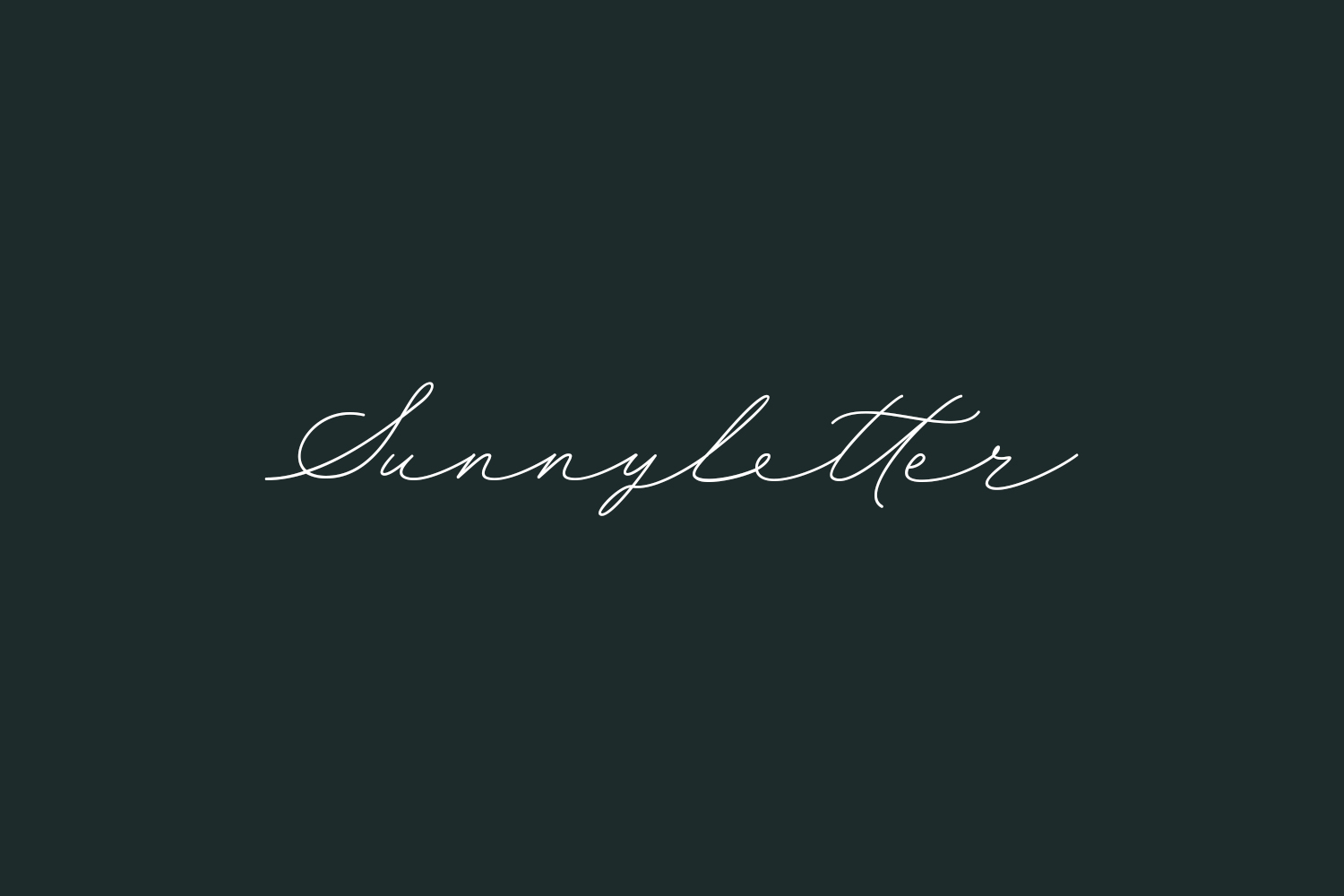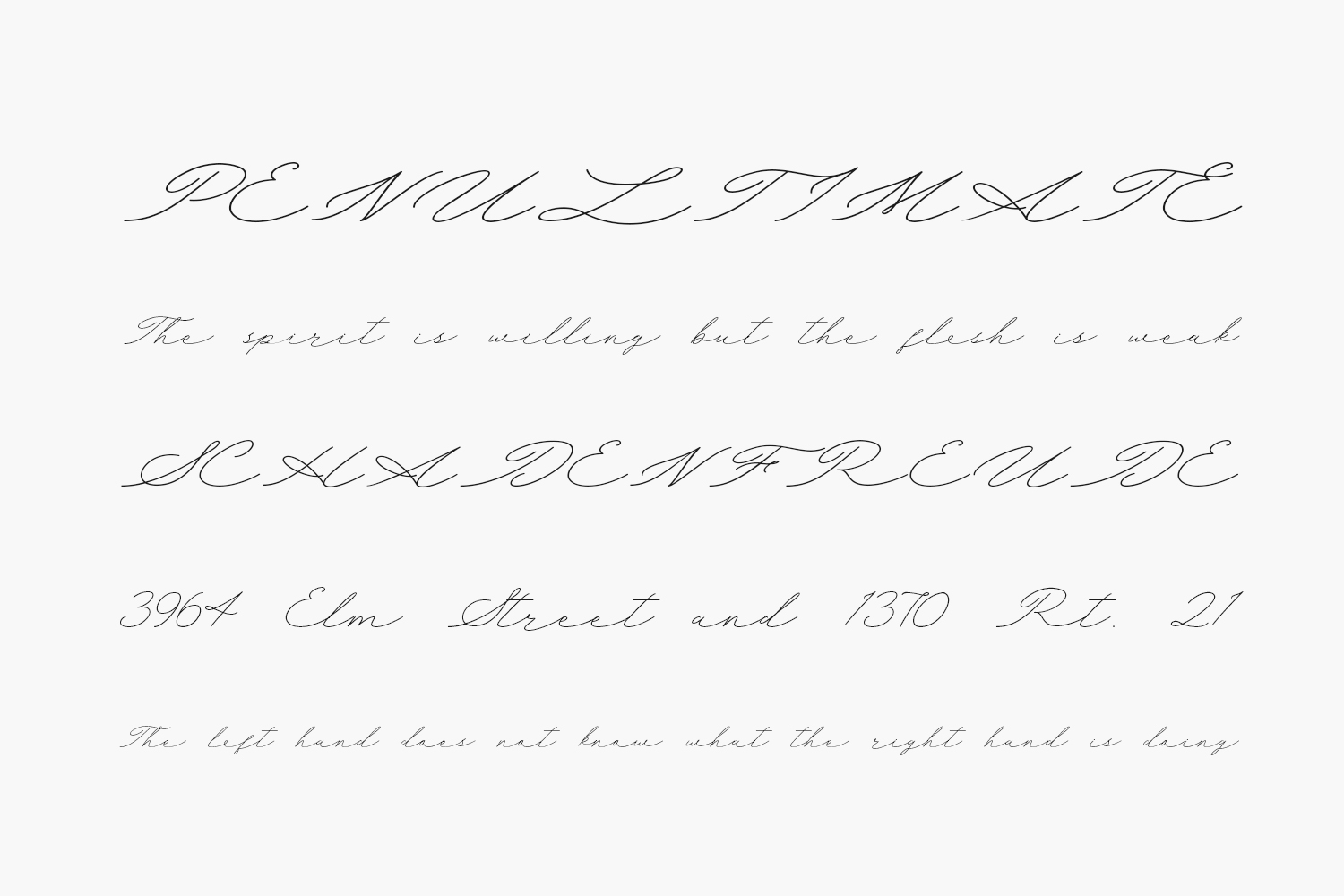
Phantom Storm Free Font is a charming script typeface that radiates joy and positivity with its playful, handwritten style. Its whimsical curves and lively strokes evoke a sense of carefree spontaneity and unbridled creativity, making it a perfect choice for designs that celebrate individuality and self-expression. With its lively energy and infectious optimism, Sunnyletter Free Font feels like a burst of sunshine on a cloudy day, lifting spirits and spreading smiles wherever it appears. Phantom Storm Free Font is free for personal use only. Please purchase the full version for commercial use.